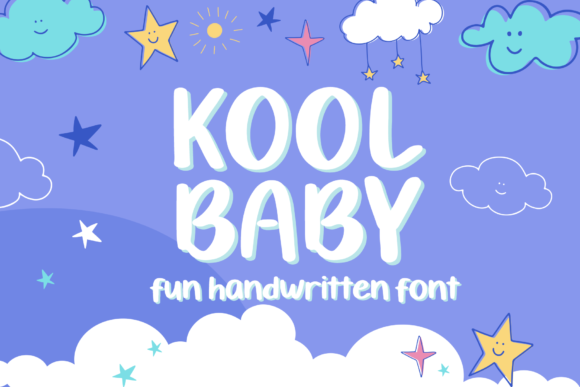
Why I Chose Kool Baby for My Brand’s Typography
I run a small handmade candle business, and recently I decided it was time to give my brand visuals a refresh. My old packaging looked good enough, but something felt off — like it wasn’t quite telling the story I wanted. That’s when I discovered Kool Baby, a fun, quirky, and whimsical display font that immediately caught my eye. As someone who spends hours designing labels and promotional materials, I knew that choosing the right typeface could make all the difference.
Kool Baby for Product Labels and Handmade Packaging
The first thing I did was try Kool Baby on my candle jar labels. The playful curves and bold character of this display font added just the right amount of charm without looking too childish or unprofessional. It helped me stand out in a market where many brands use standard sans serif fonts. With Kool Baby, my labels suddenly felt more personal, more creative — exactly what I wanted for a brand that celebrates self-care and cozy living.
What I love about Kool Baby is how it feels both approachable and distinctive. It’s perfect for short phrases like “Hand-Poured Love” or “Calm & Cozy,” which are common in my product descriptions. Because it’s a display font, it shines best in headlines and titles rather than long blocks of text. But even so, its unique style makes everything feel more intentional and polished.
Using Kool Baby in Social Media Graphics and Website Banners
Next, I tested Kool Baby on some social media templates I had been using. For an Instagram post promoting a new lavender-scented candle, I used it as the main headline. The whimsical nature of the font matched the relaxing vibe of the product perfectly. Followers commented saying it made the post feel more inviting and aligned with the brand’s personality.
On my website, I replaced the generic header font on my homepage banner with Kool Baby. The change was subtle but powerful — it added warmth and creativity to the page, making it easier to connect with customers. Display fonts like Kool Baby are great for online shop graphics because they draw attention and create a memorable visual hook.
How Kool Baby Elevates Brand Identity Without Overdoing It
One of the things I worry about when choosing fonts is making sure they don’t clash with each other or overwhelm the design. Kool Baby is surprisingly versatile in this way. It works well when paired with a clean sans serif or an elegant serif font, depending on the tone I want to hit. For example, if I’m creating a flyer for a local pop-up event, I’ll pair it with a simple sans serif to keep the body text easy to read while letting the title shine.
It’s important to note that Kool Baby is not meant to be used throughout entire documents or websites. As a display font, it excels in logos, headers, and decorative accents. But knowing when to pull back and let it coexist with supporting typography is key to keeping your designs from feeling cluttered.
Readability Tips When Using Kool Baby on Small Labels and Mobile Screens
Since I sell candles in physical markets and through online shops, readability on small labels matters a lot. At first, I worried that the quirks of Kool Baby might make it hard to read at smaller sizes. However, after adjusting the spacing and weight, I found that it still worked beautifully on tiny tags. Just like any display font, it needs a little extra care when applied to compact areas.
For mobile screens, I recommend using Kool Baby in larger text sizes for headlines and avoiding it in menus or footers where clarity is more important than flair. Its stylized look is best reserved for display text, such as hero banners or call-to-action buttons on social media thumbnails.
Kool Baby for Business Cards and Stationery Design
Business cards are often one of the first points of contact between a customer and a brand. I redesigned mine using Kool Baby for the name and tagline. It gave the card a friendly yet professional edge — something I hadn’t achieved before. Now, whenever I hand out a card, people notice it more and remember it longer.
For stationery like thank-you notes and order confirmation emails, I used Kool Baby sparingly — mostly for headings or special messages. This helped maintain a balance between whimsy and professionalism. A strong brand identity isn’t just about being different; it’s about being consistent and trustworthy.
Choosing the Right File Format and Style for Commercial Use
Another thing I considered was the presence of alternates and ligatures. These little extras can add uniqueness to your branding. I loved experimenting with them to find the perfect look for each label and graphic. They helped differentiate my products subtly but effectively.
If you’re a small business owner, an entrepreneur, or anyone building a brand from scratch, consider trying Kool Baby for your next project. It’s a display font that adds personality without sacrificing professionalism, and it’s ready to help your brand stand out in a crowd.